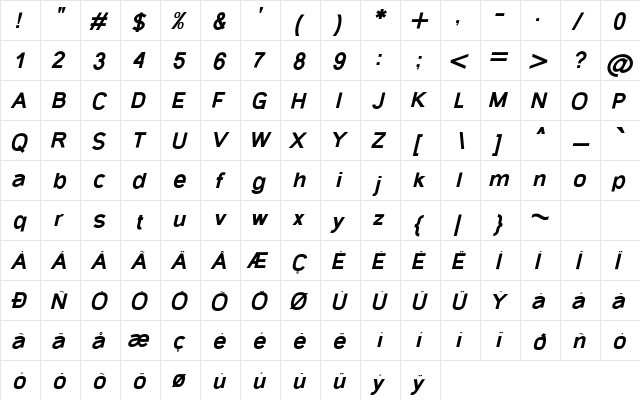
Gecade Bold Italic
Design Context for Gecade Typeface
Gecade offers clean, dependable letterforms without strong stylistic allegiance, making it a practical choice for designers who need flexibility. The slanted form adds forward momentum and visual energy. The heavy weight commands attention and anchors typographic hierarchies.
Pro Tip: Use Gecade for emphasis, pull quotes, and subheadings where its slanted energy can add rhythm to the layout.